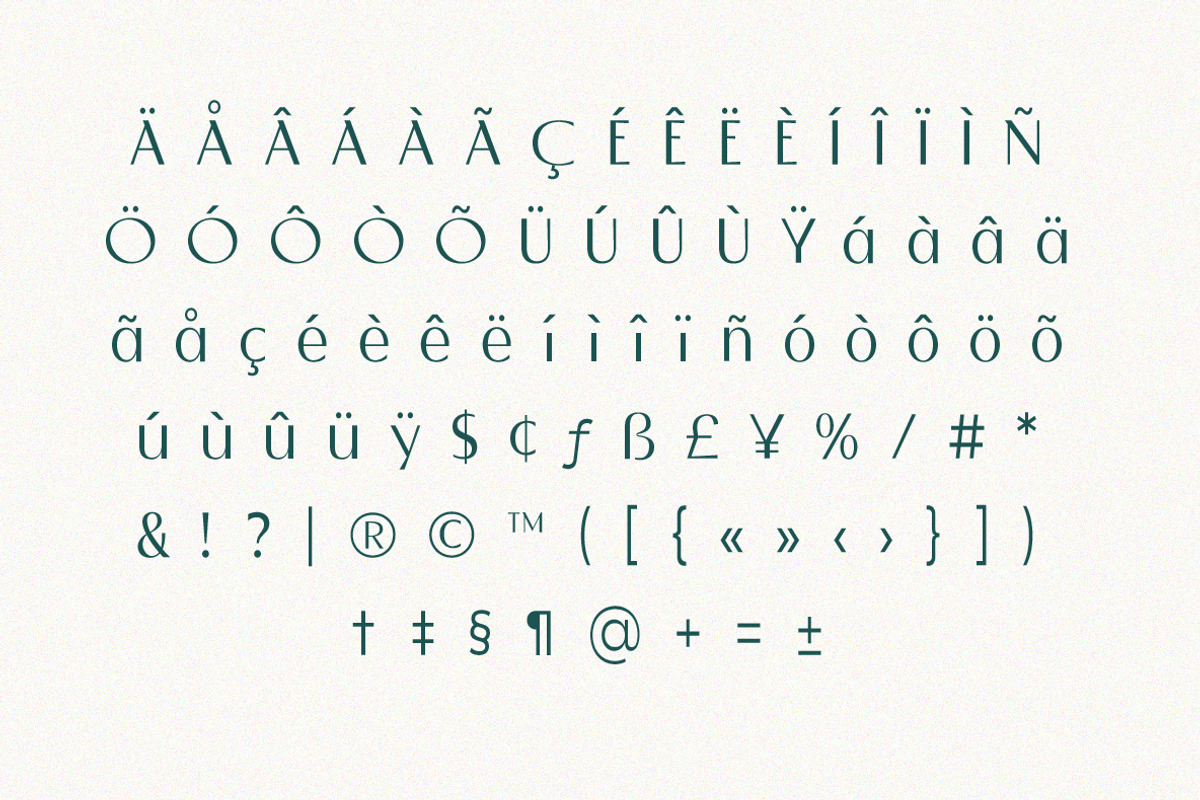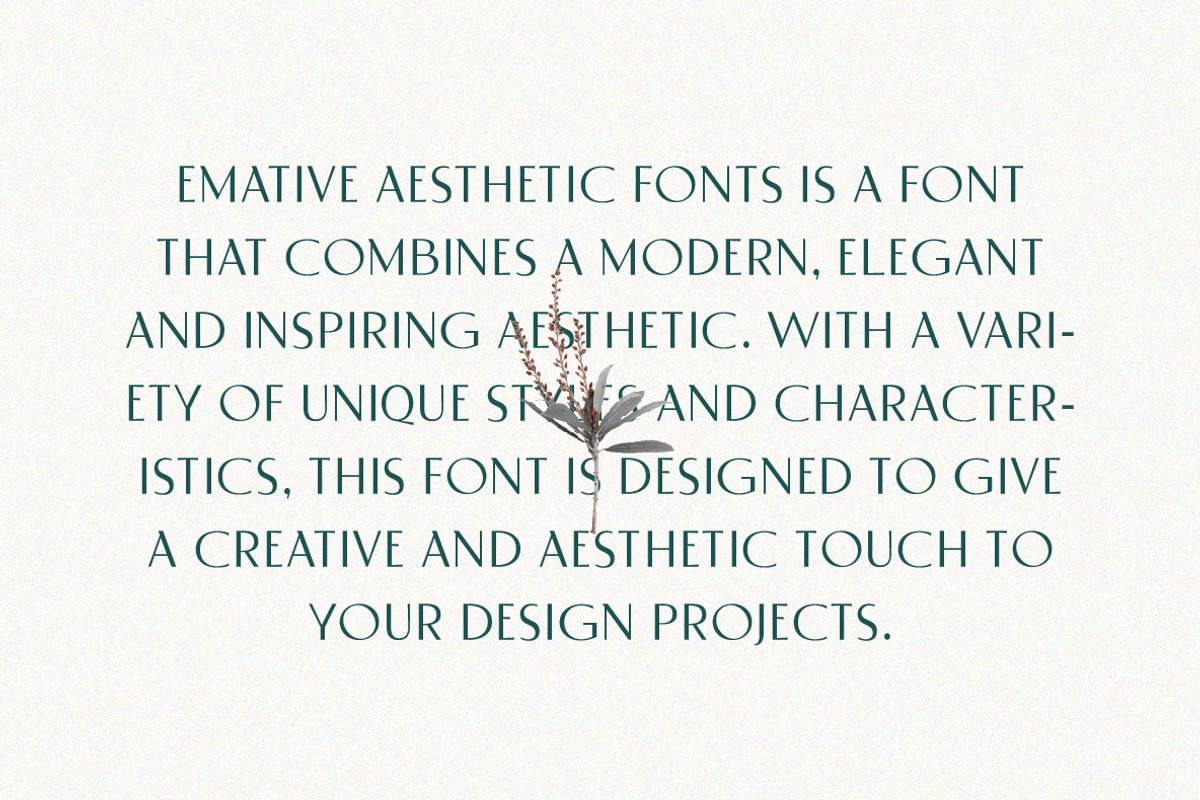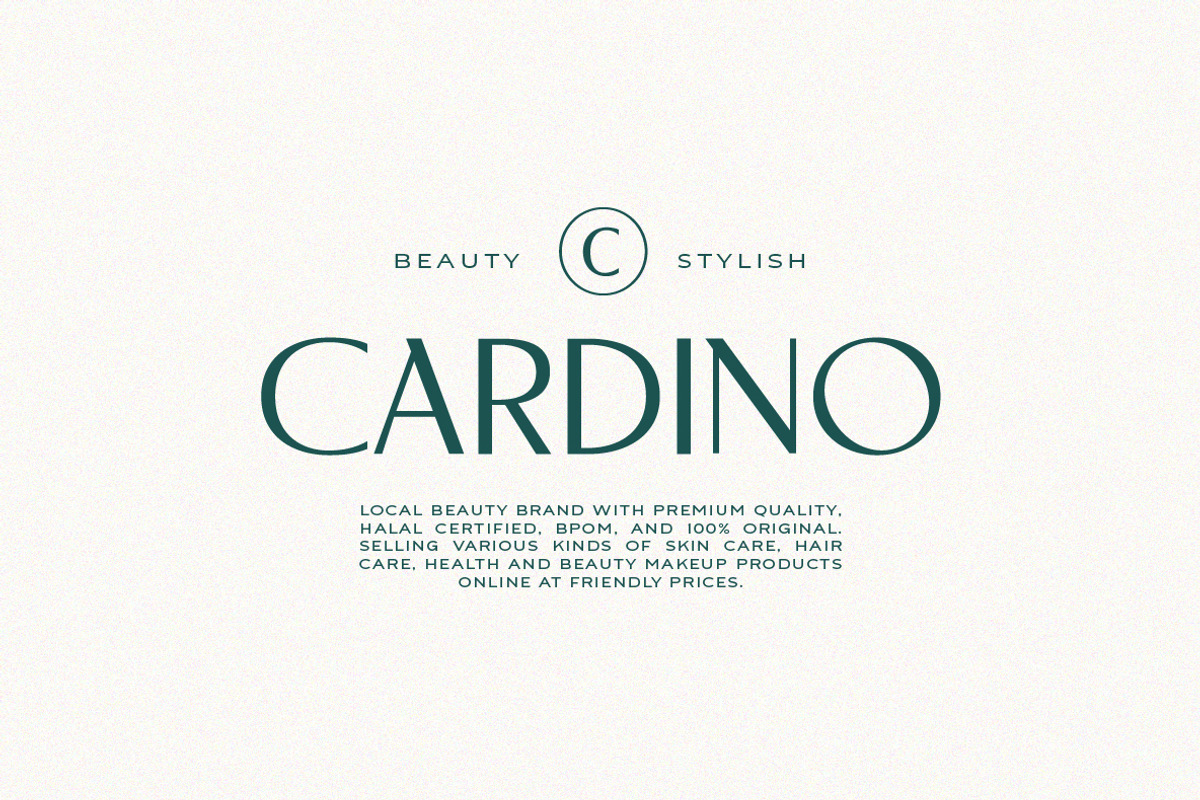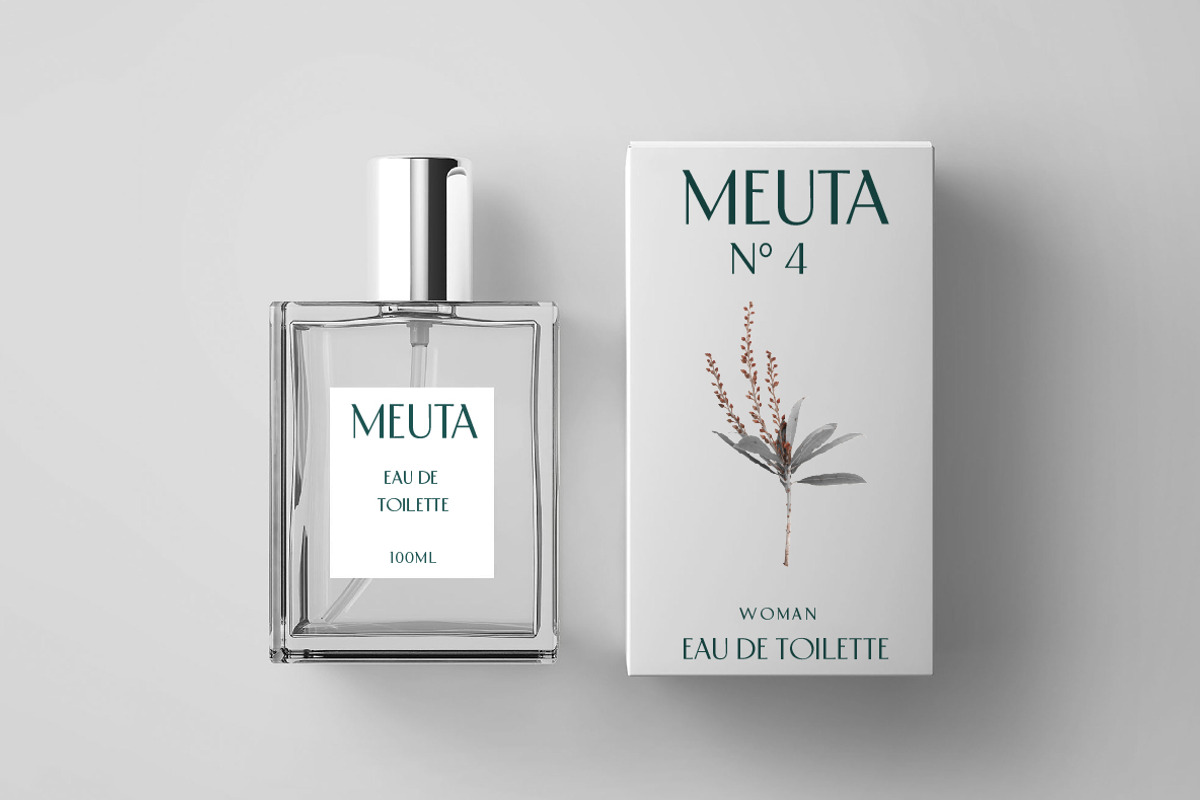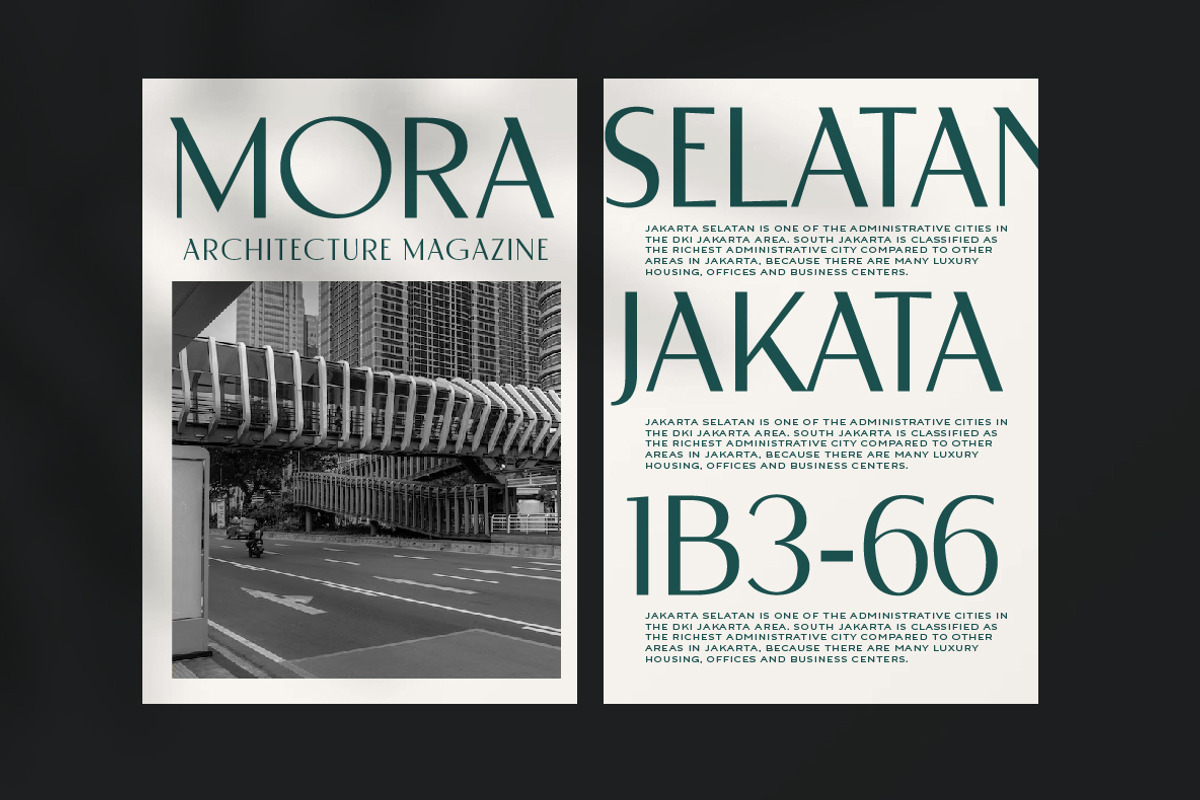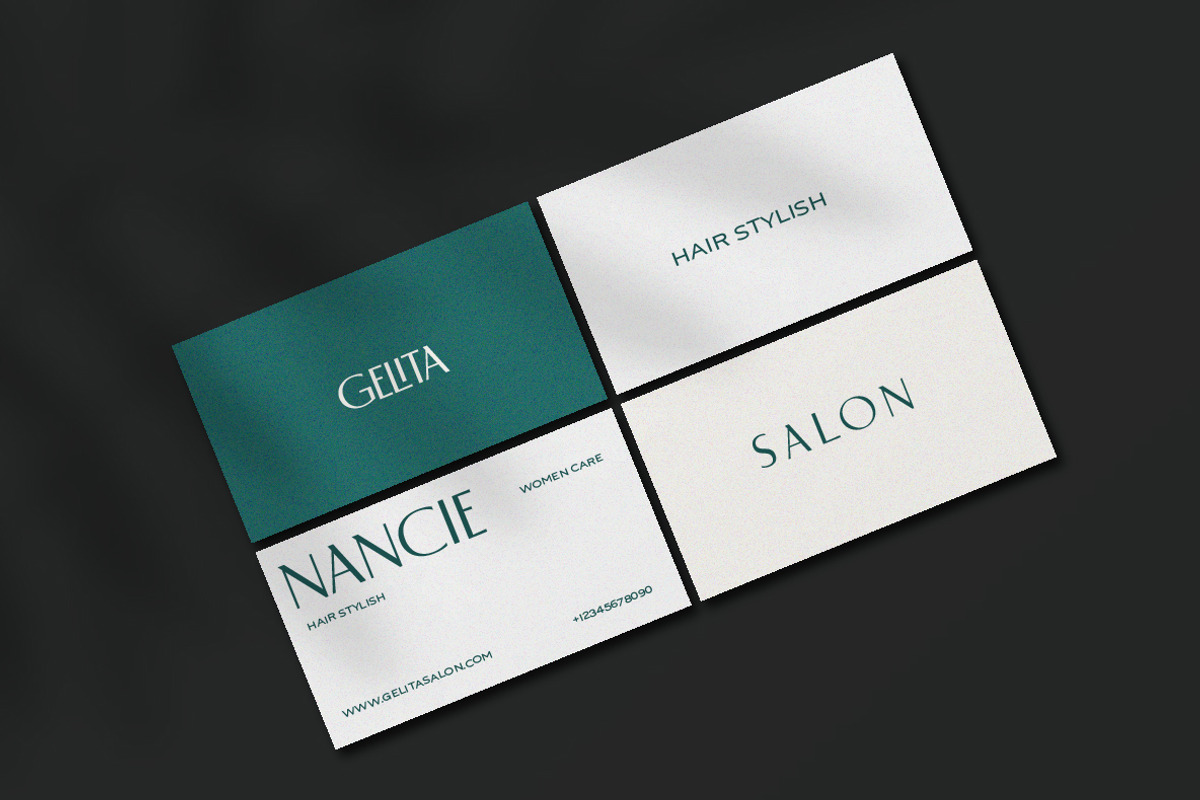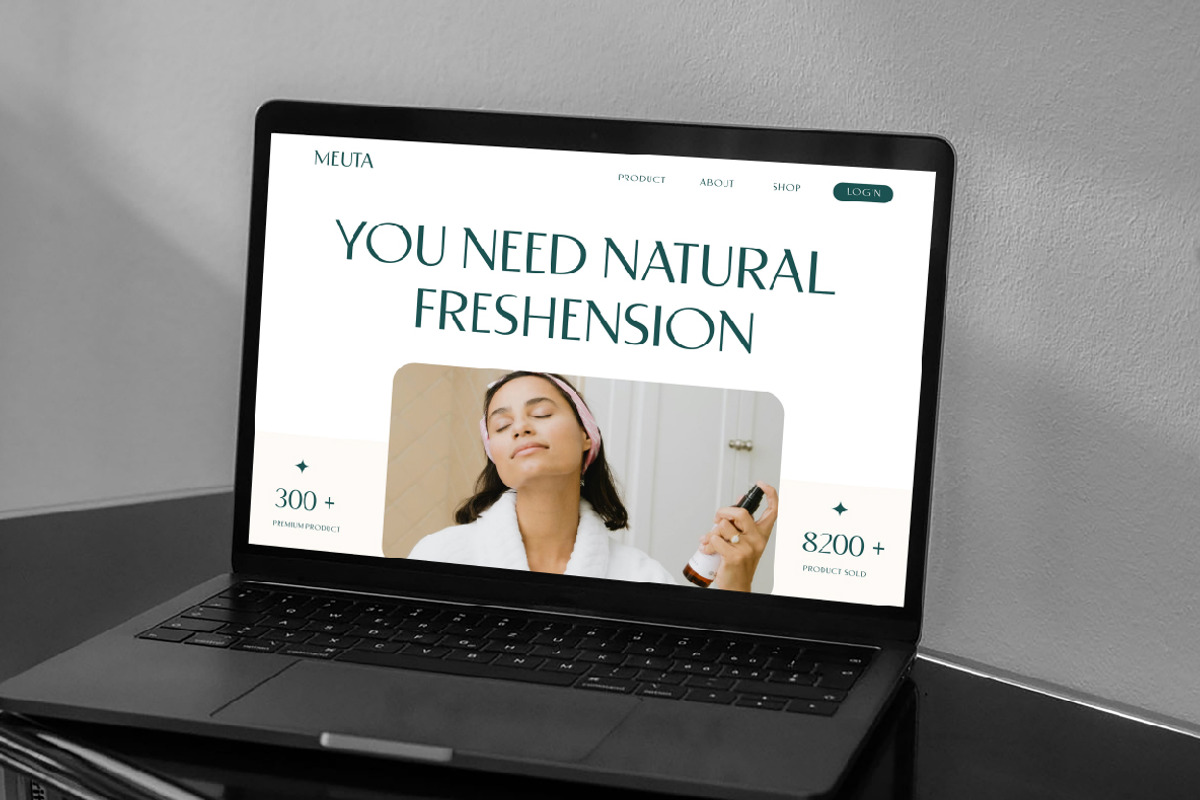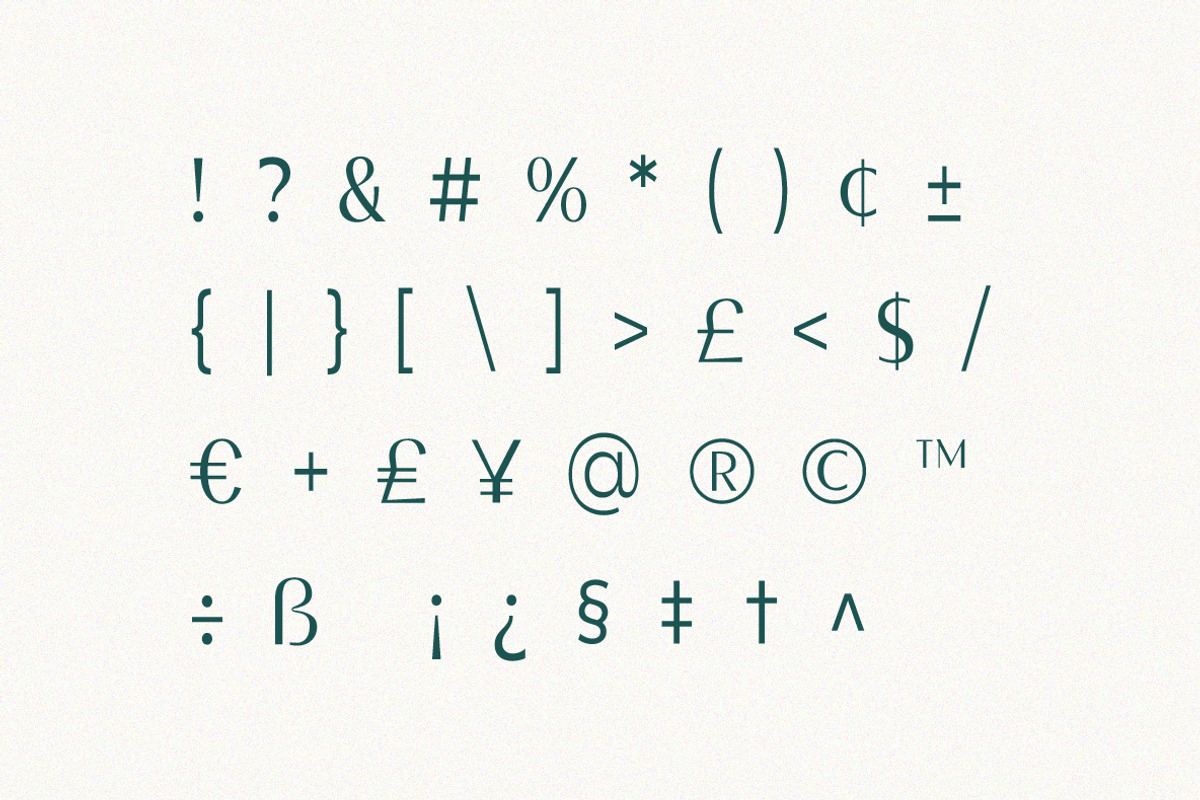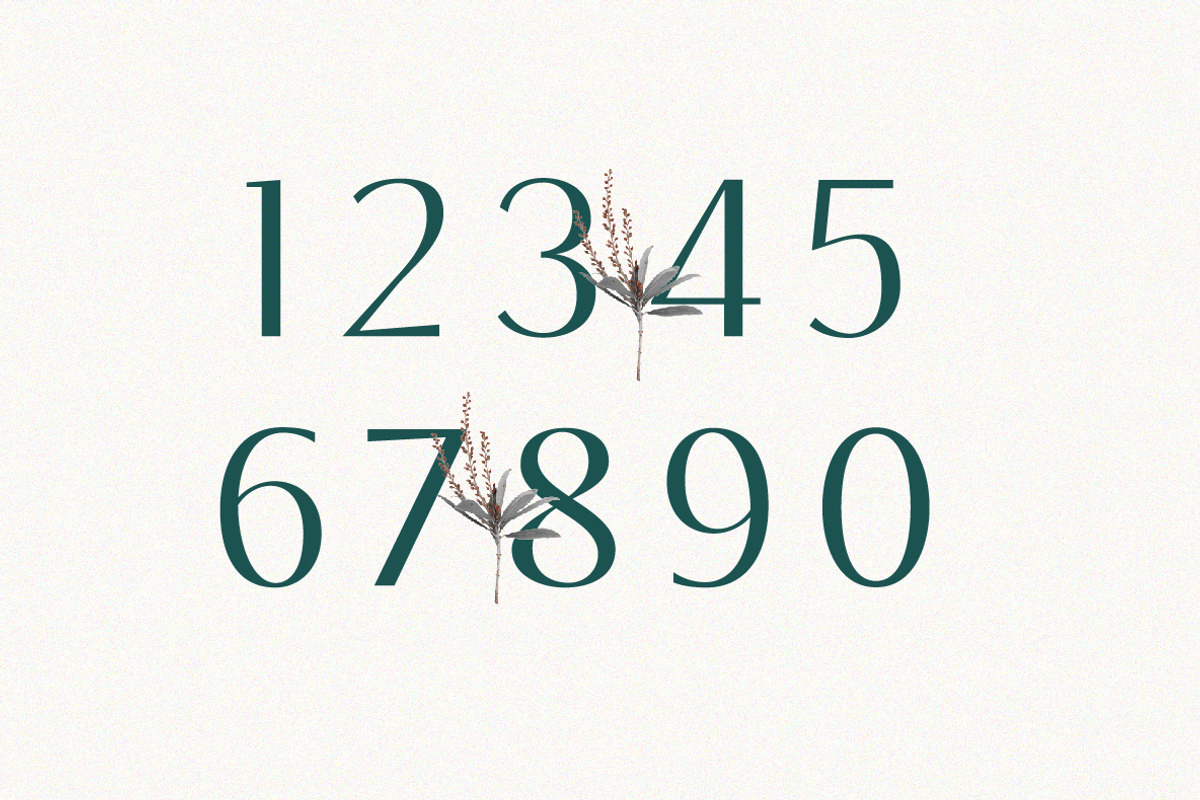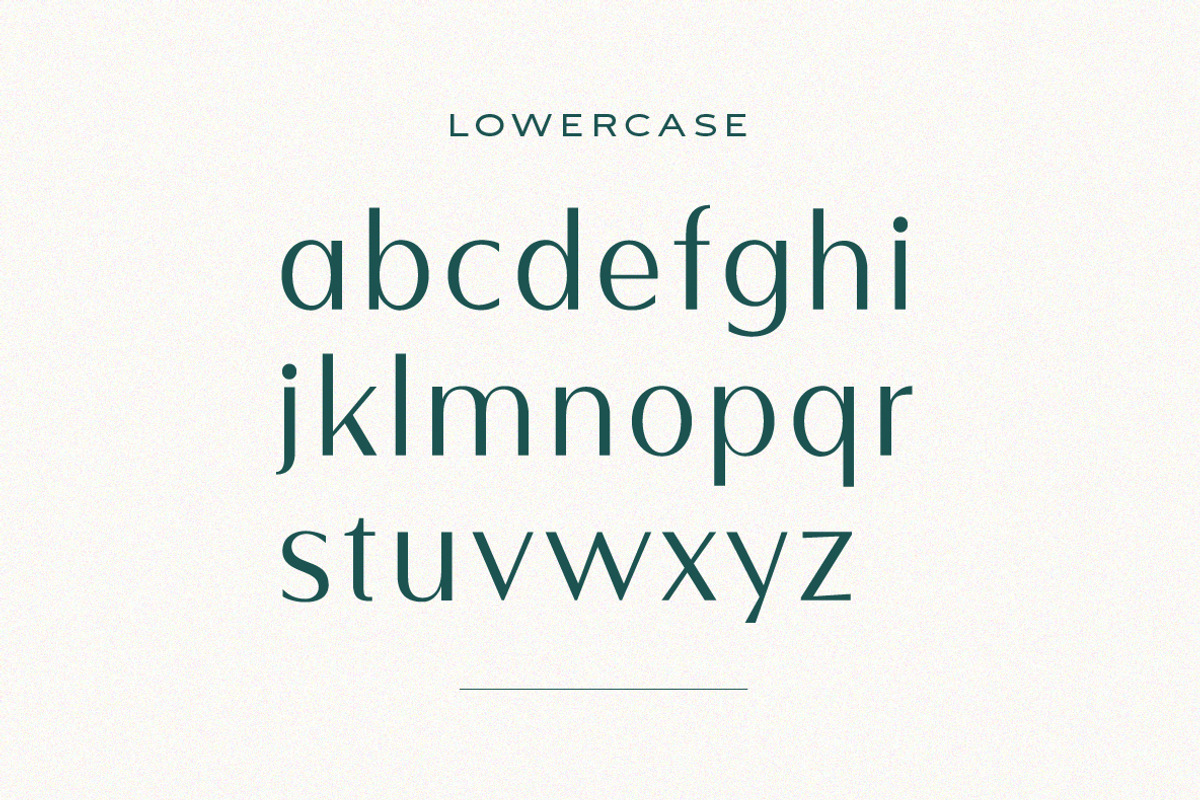
Derose Clean Modern Font
Derose Clean Modern Font is a font featuring a clean and fresh modern style. With a minimalist and sharp design, this font gives off a clean and professional impression.
Each letter has clear lines and balanced proportions, ensuring optimal legibility.
Derose Clean Modern Font is suitable for use in various graphic design projects, such as posters, brochures, logos, and web displays, with its ability to give a fresh and contemporary look